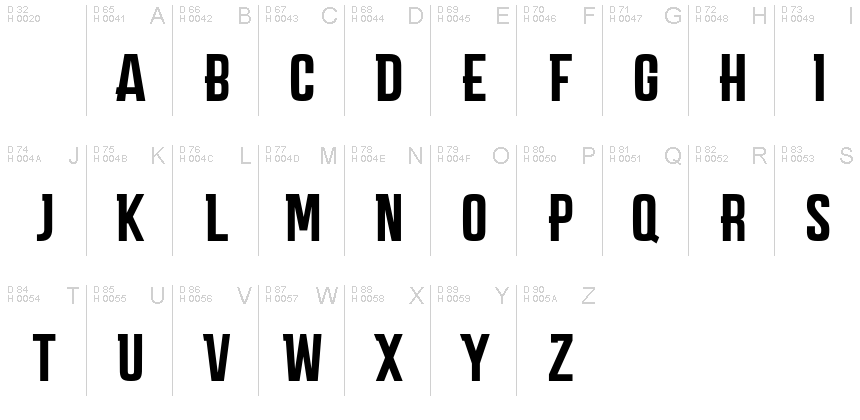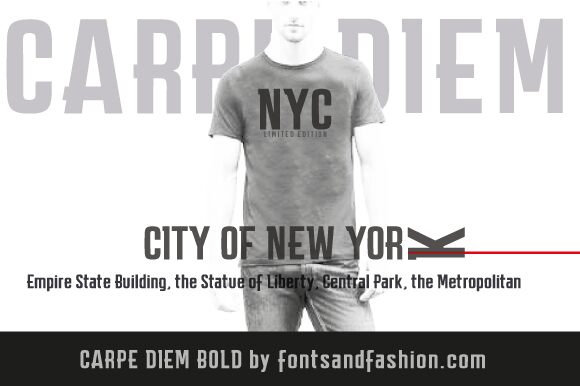
CARPE DIEM BOLD_DEMO
Carpe Diem Bold font from the Carpe Diem family exudes an air of modern sophistication with its striking condensed form. This bold typeface captures attention effortlessly, enhancing any design with a unique blend of elegance and assertiveness. The bold strokes create a commanding presence, while the condensed structure adds an element of sleekness, making it perfect for contemporary branding or impactful headlines.
Versatile in use, Carpe Diem Bold shines in creative projects ranging from posters and advertisements to digital interfaces. Its distinctive style lends itself well to both artistic endeavors and professional communications, ensuring that your message stands out with clarity and flair. Whether you seek to evoke inspiration or convey assertiveness, this font is an ideal choice for diverse design contexts.